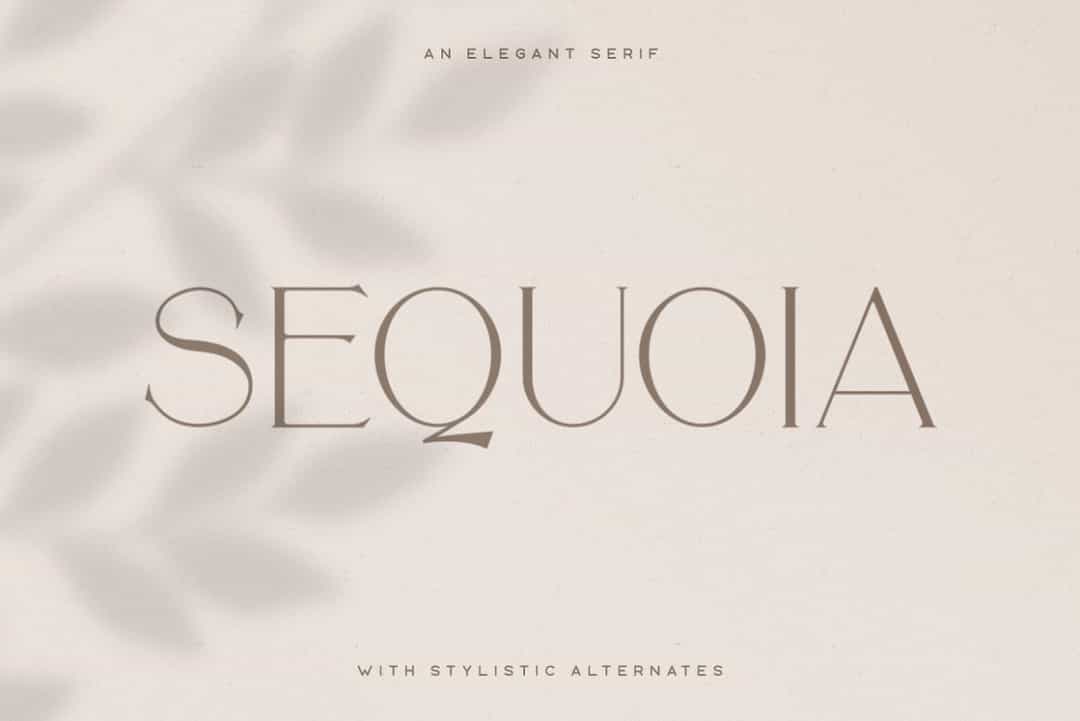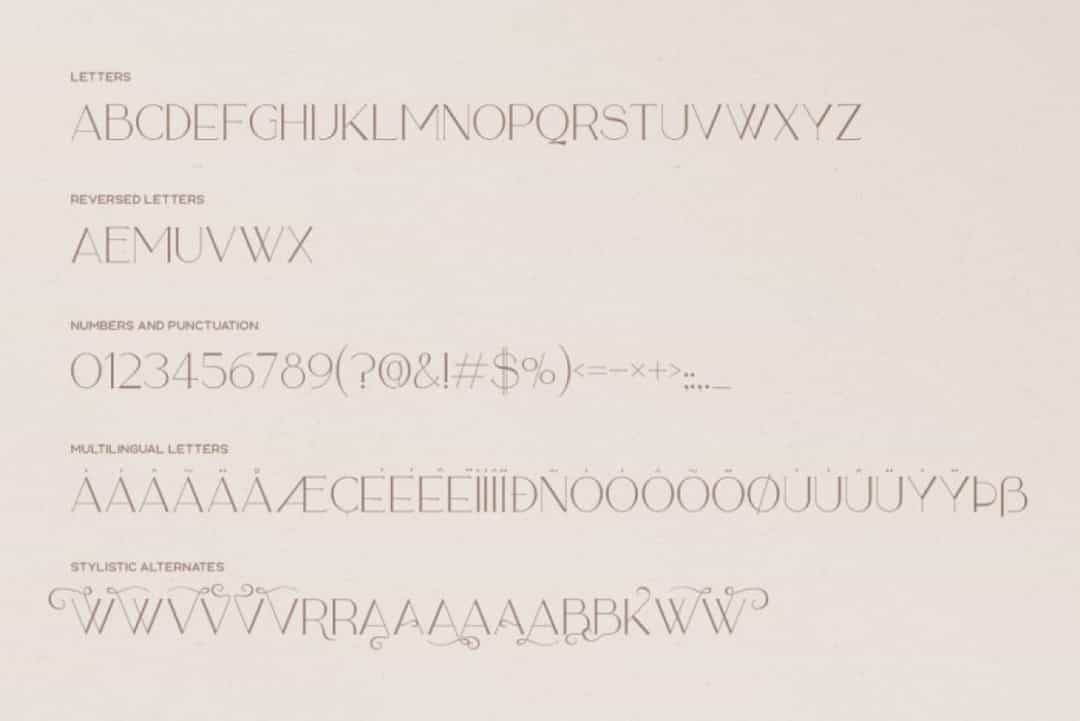
Sequoia Font is an advanced serif typeface featuring both uppercase letters and their reversed counterparts as well as stylistic alternatives. To use its features effectively, however, an application supporting alternate characters or accessing its Glyphs Panel must be used.